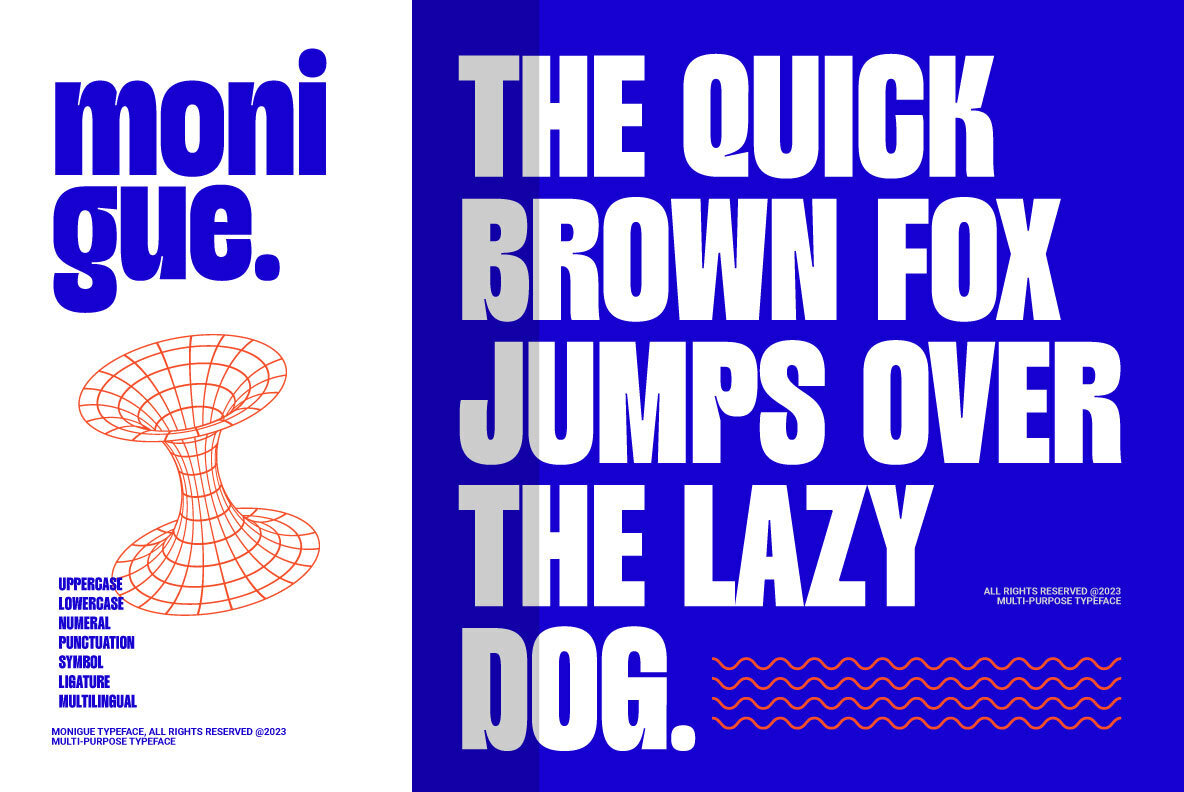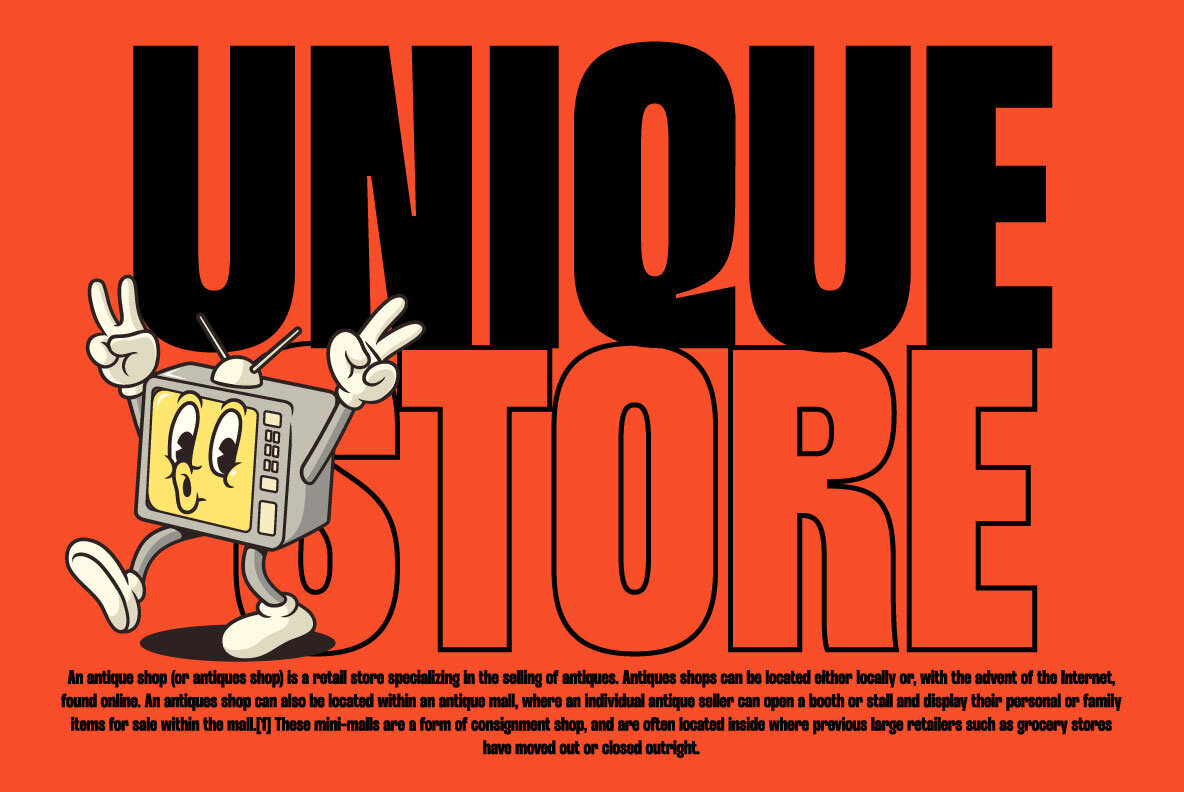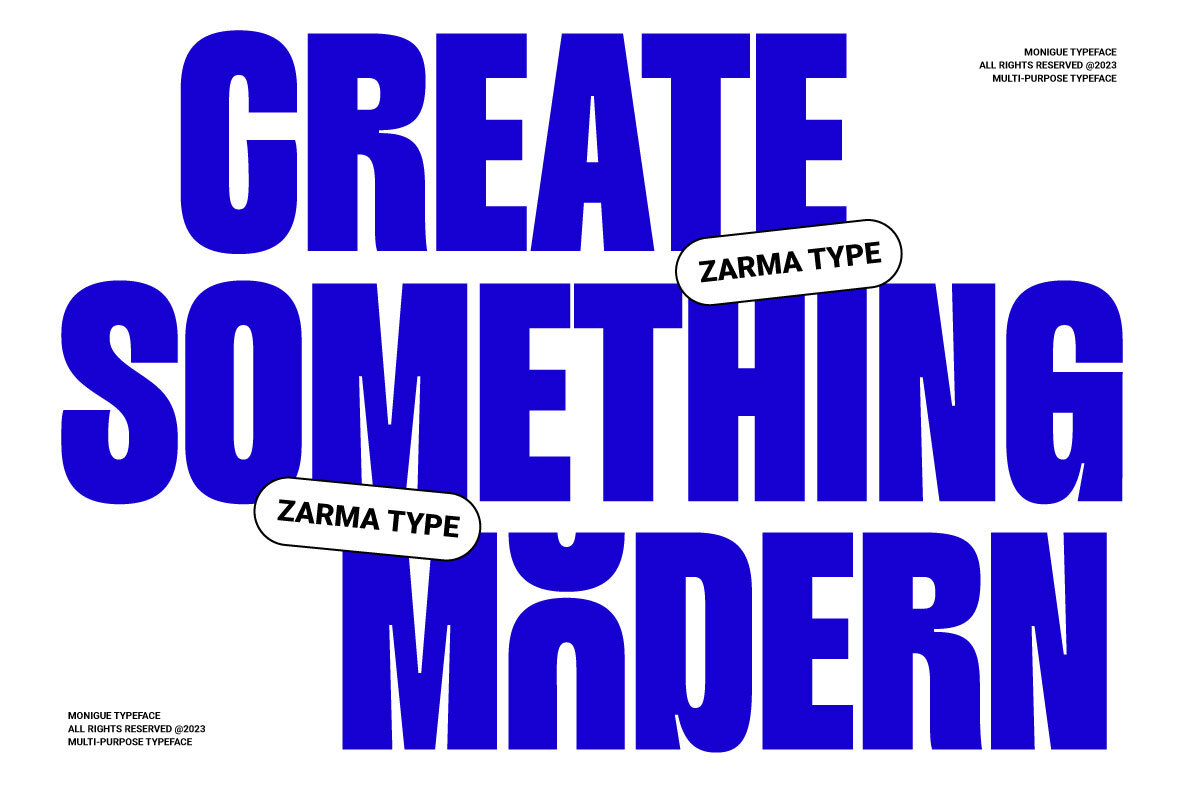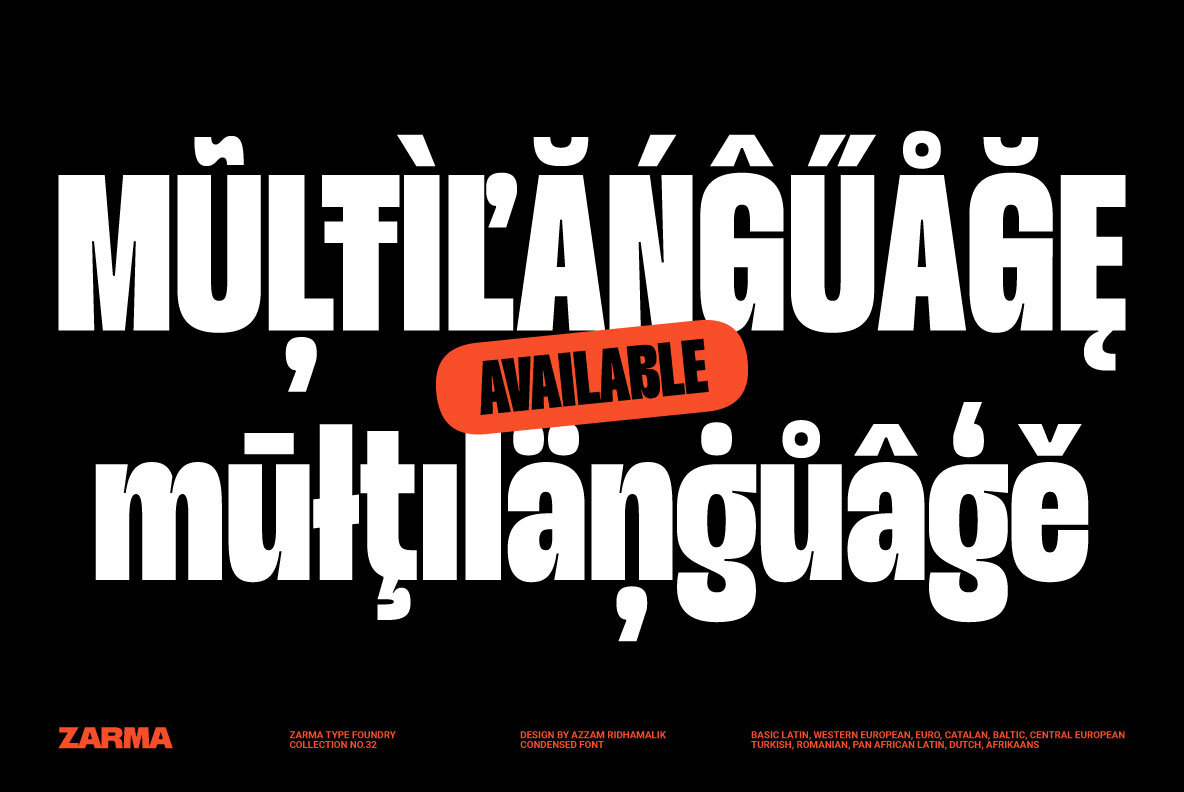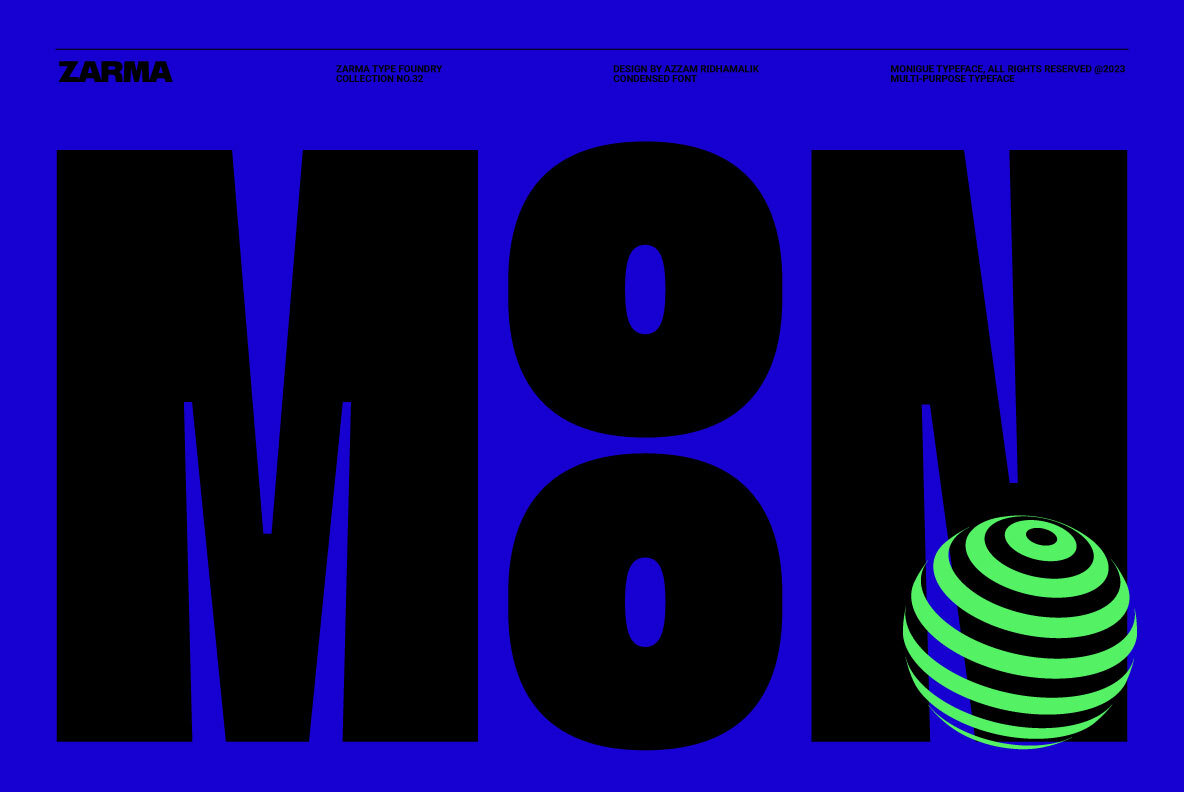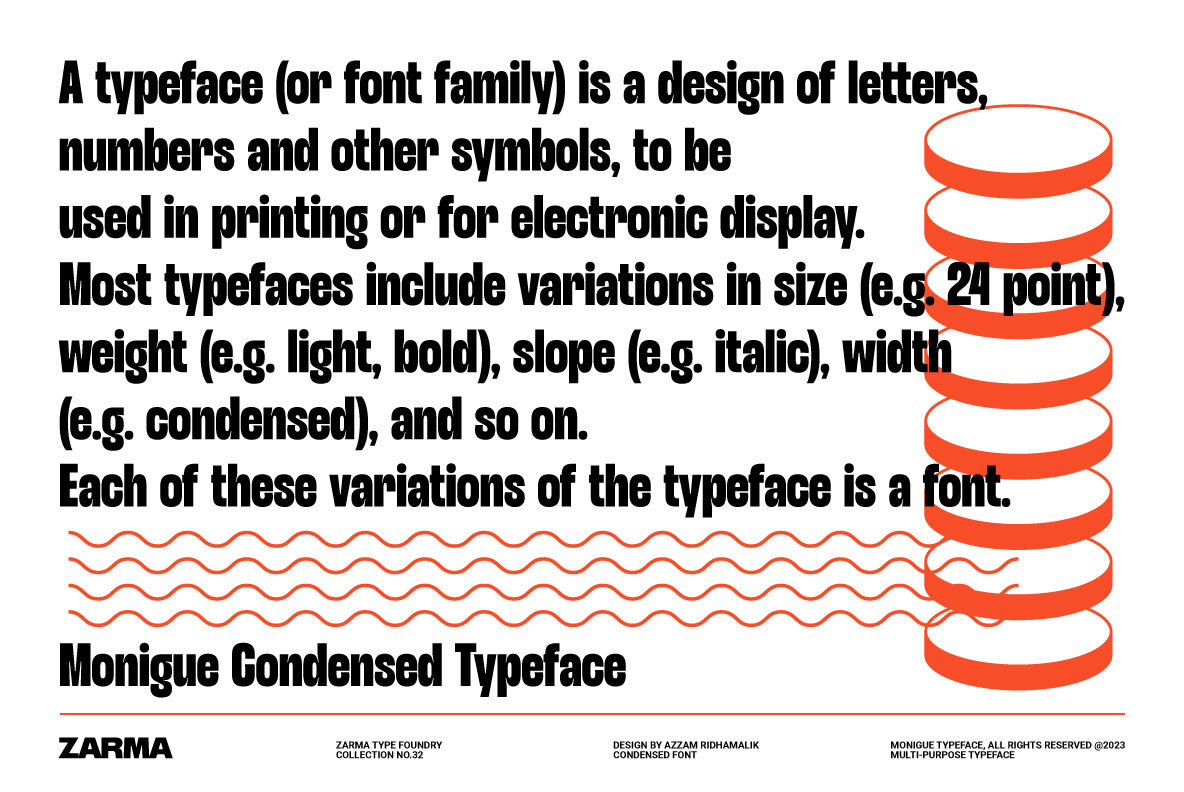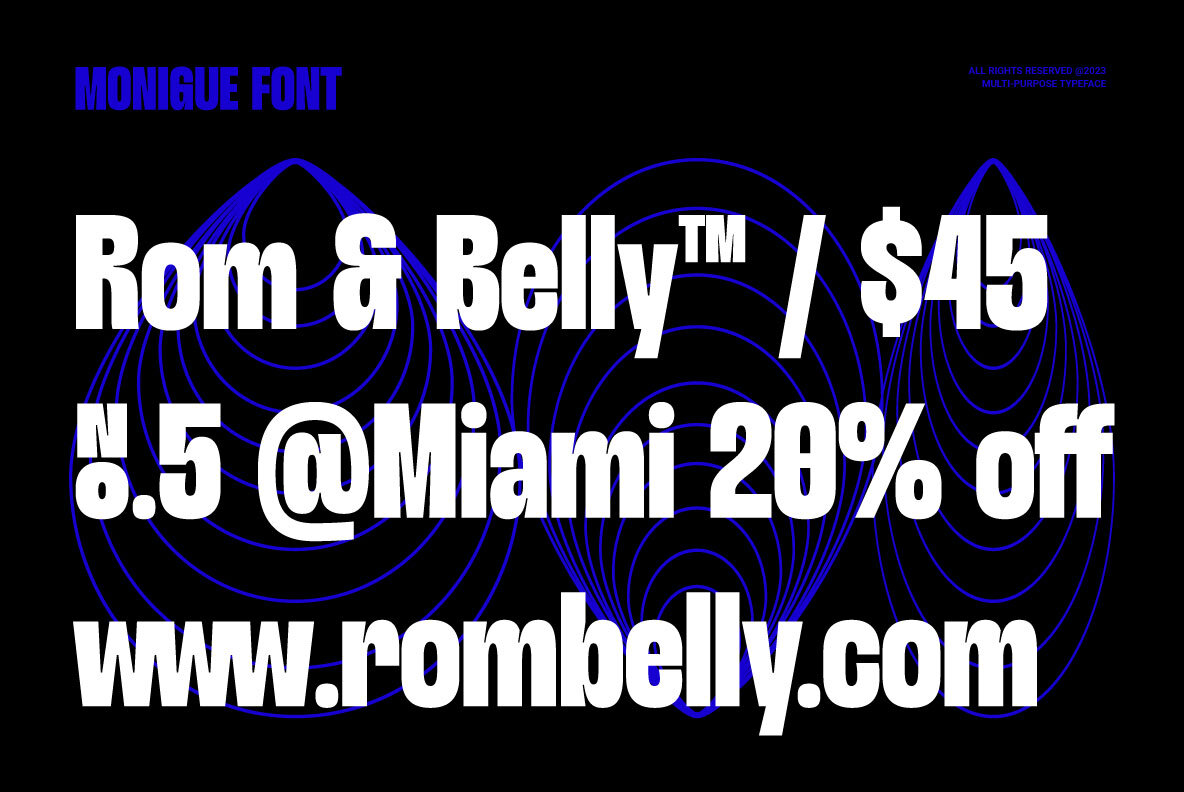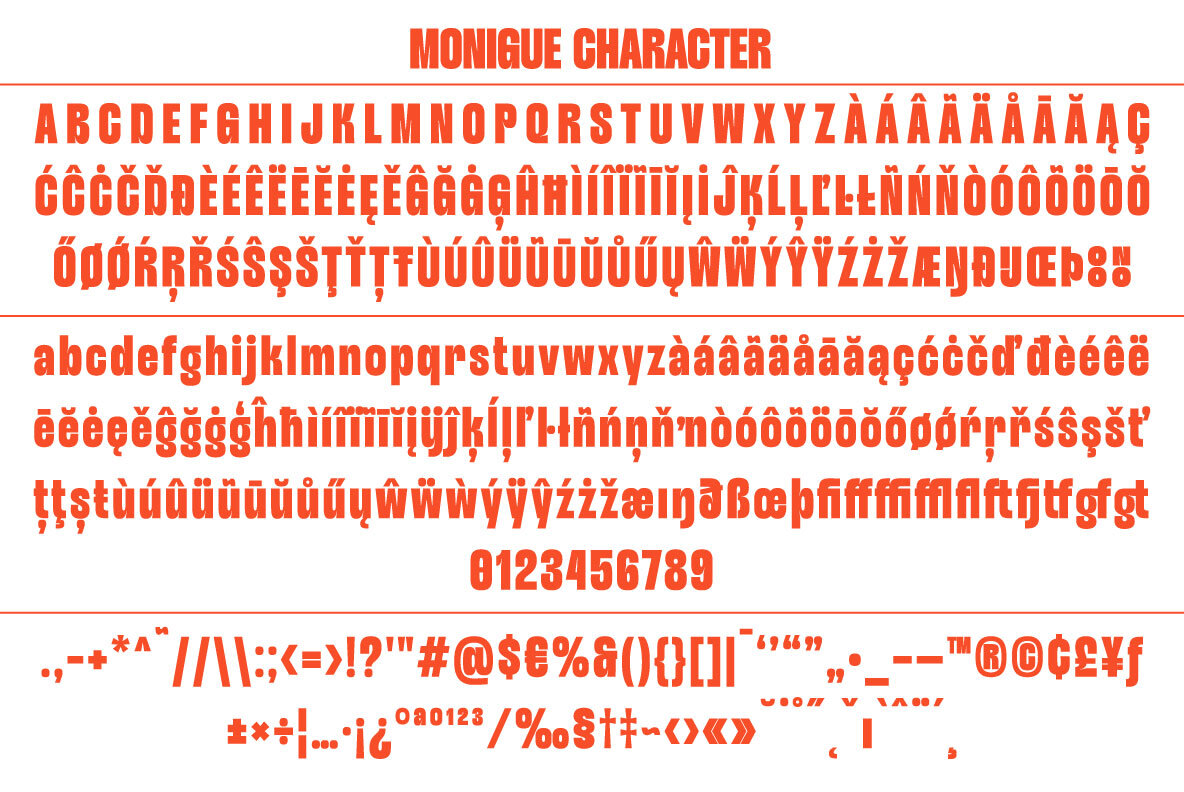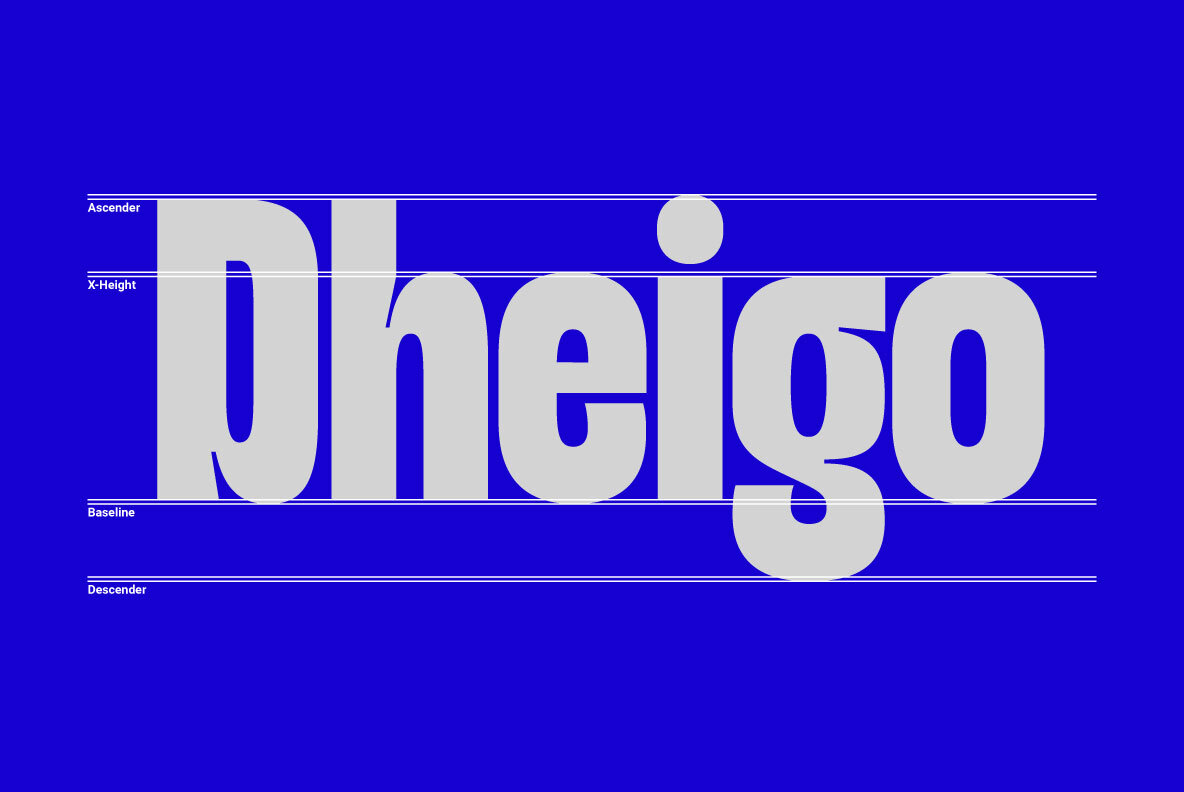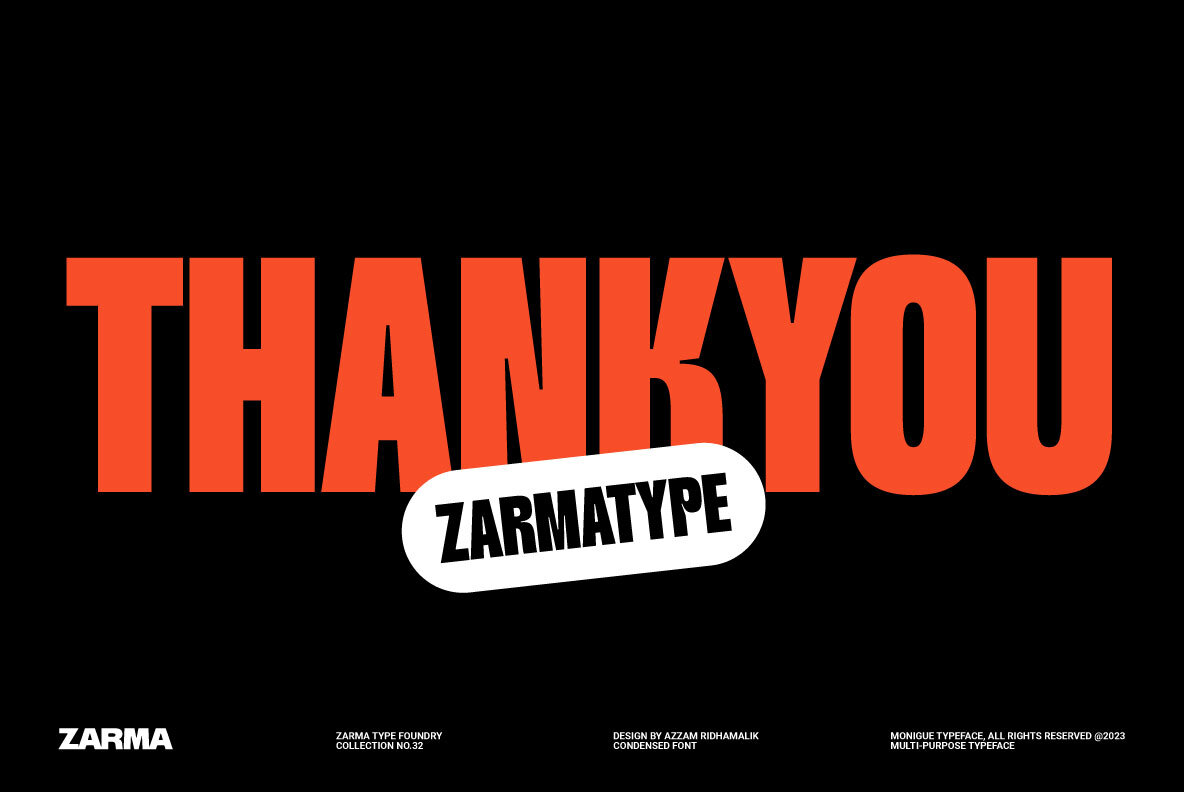
Monigue Font
Monigue
Condensed Sans Serif Font Monigue is a bold and strong condensed font that’s here to make a statement. Drawing inspiration from the sleek modern designs of the 2000s, Monigue brings back that iconic vibe with a fresh twist. This font is your go-to choice for creating stunning posters, captivating website headlines, title, signage, and sleek interface designs. Monigue typeface has a strong presence and is perfect for display sizes, making it an excellent candidate for impressive logo design with its contemporary sans serif design. It has OpenType features and an Extended Latin character set boasting over 370+ glyphs covering more than 88 languages. Condensed Sans Serif Font Monigue will ensure your design communicates effortlessly to a global audience. Features: